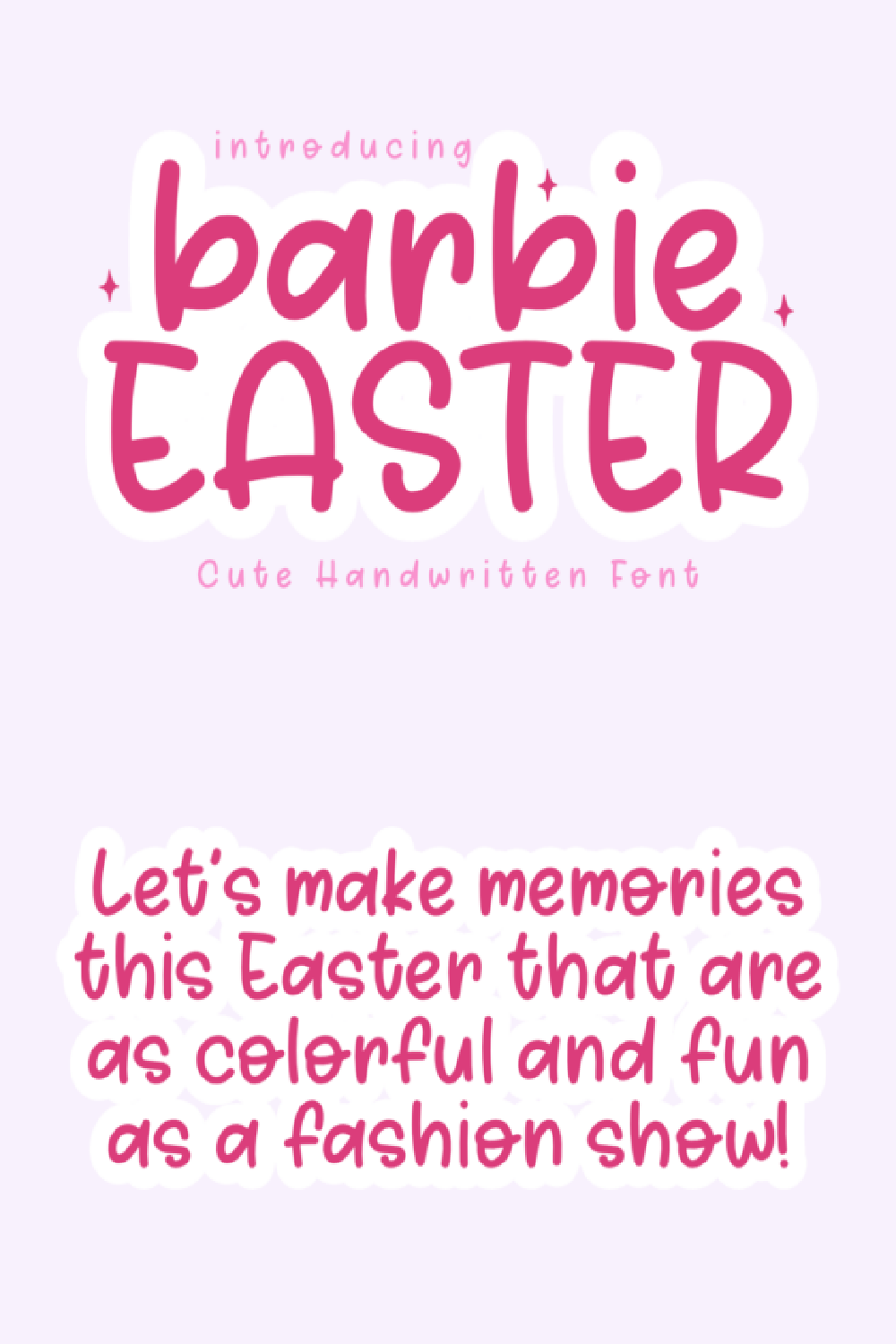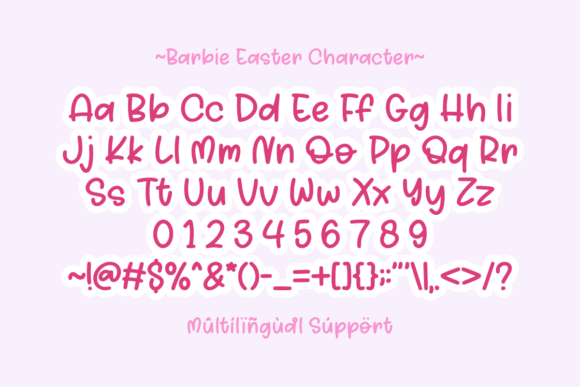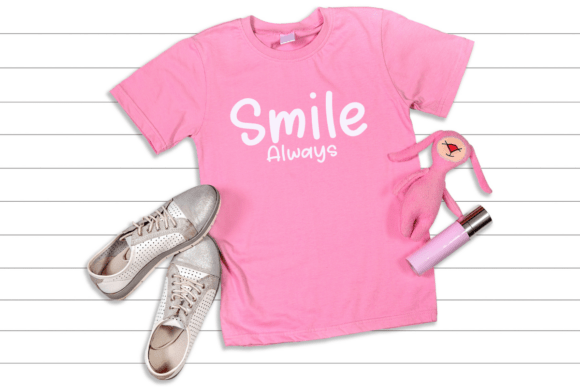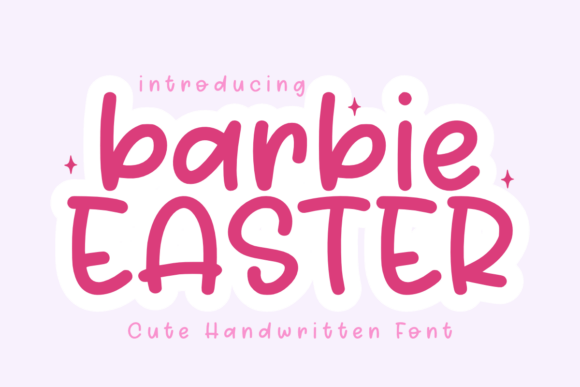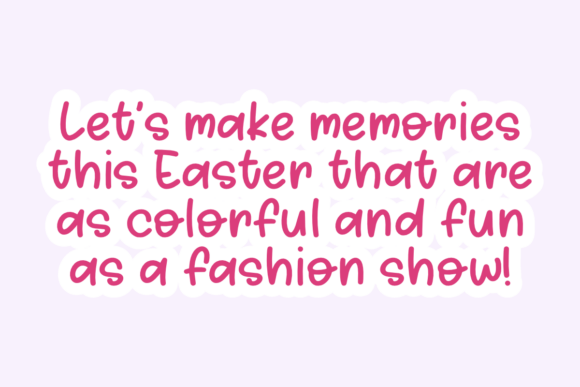
Barbie Easter Font
About the Barbie Easter Font
Presenting Barbie Easter Font, a unique and stylish typeface that will make your work stand out. Barbie Easter is a cute and playful handwritten font, perfect for planners, stickers, cards, quotes, and craft projects. Ideal for creative moms who love DIY, journaling, and Cricut crafts!